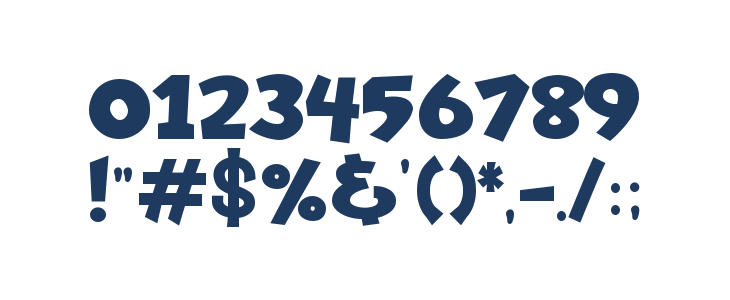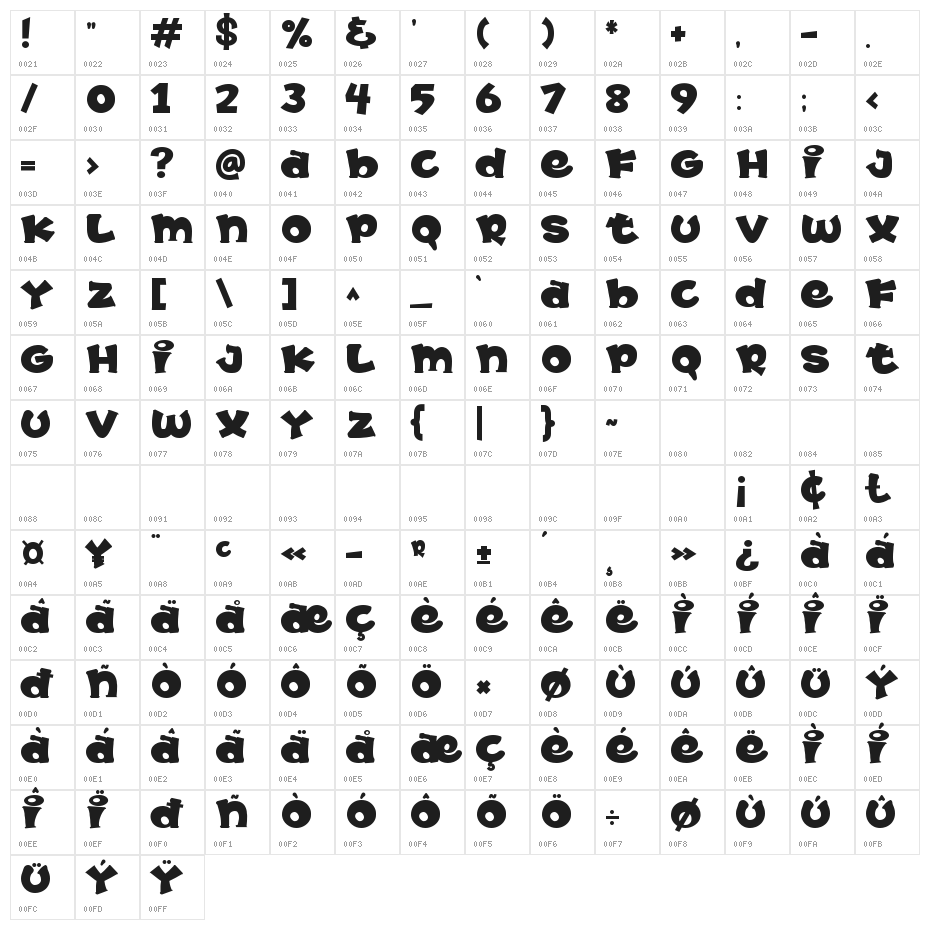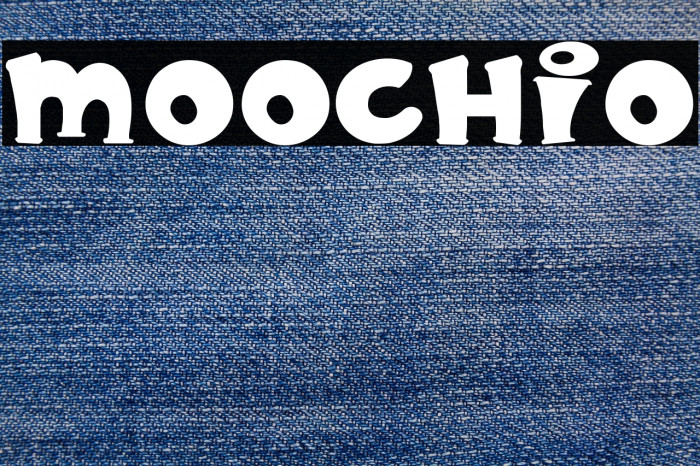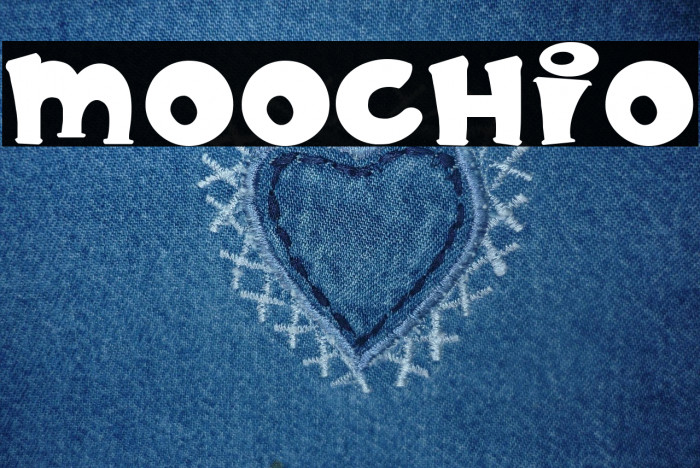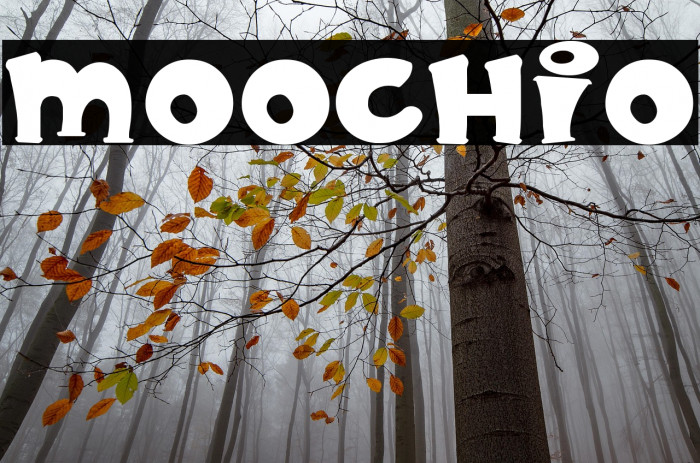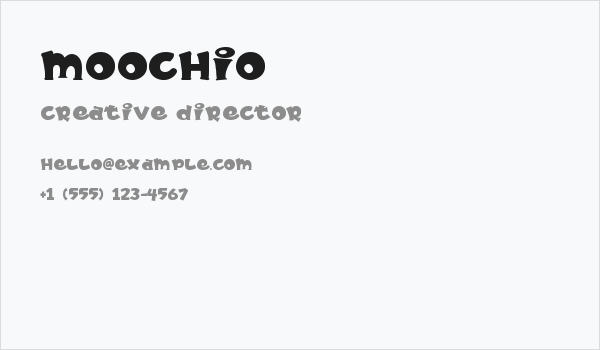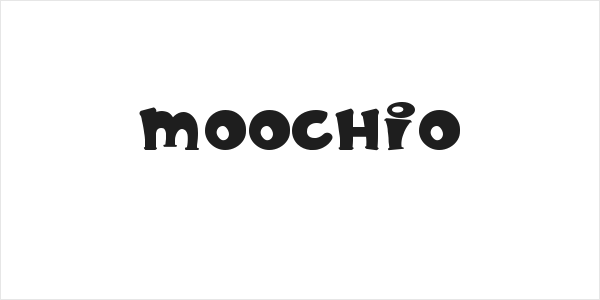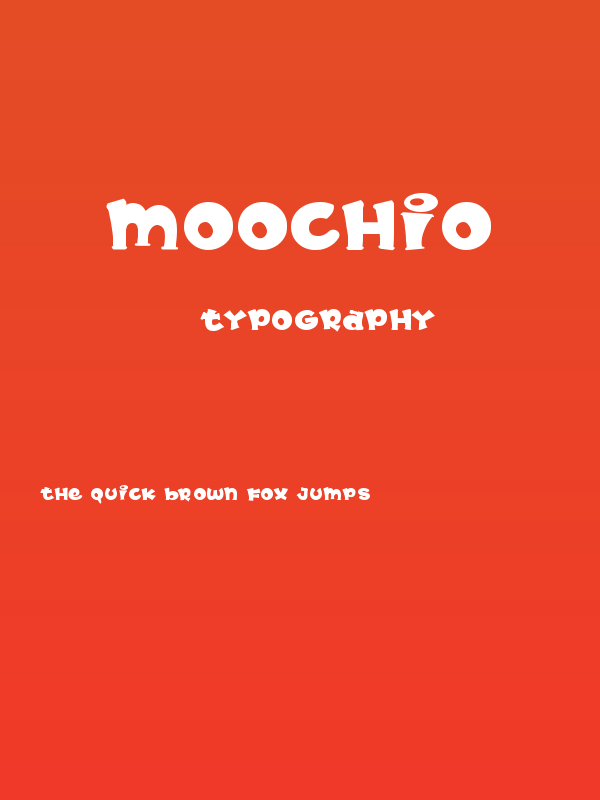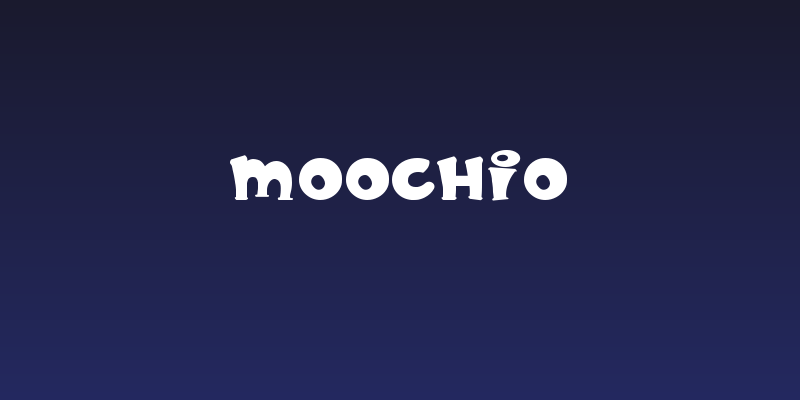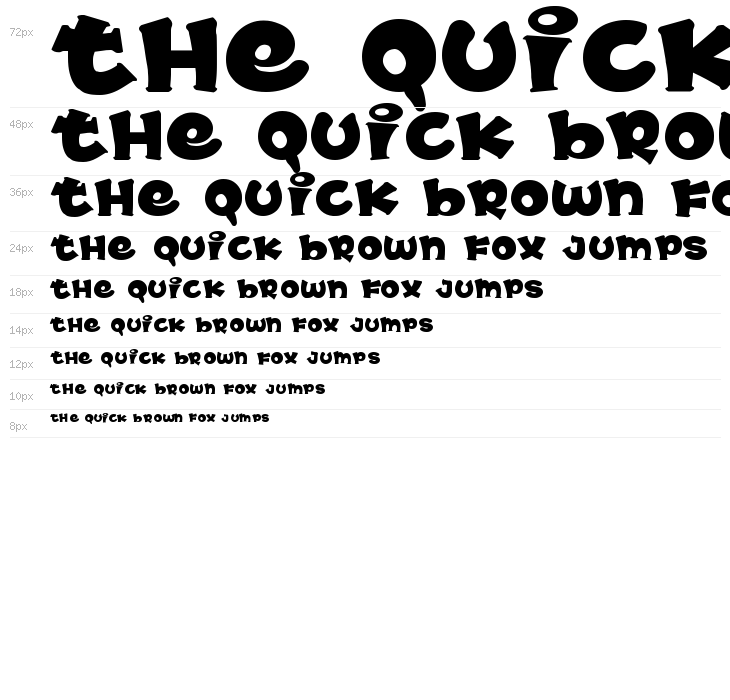
Moochio Font
Moochio Description
This playful and bold font features a whimsical, cartoon-like style with exaggerated curves and thick strokes. The characters are rounded and slightly irregular, giving them a lively and dynamic appearance. The uppercase and lowercase letters maintain a consistent style, with a strong emphasis on boldness and a touch of humor. The numbers and special characters follow the same design principles, ensuring a cohesive look across all elements. This font is perfect for projects that require a fun and engaging aesthetic.
| Overall Style | Playful, Cartoonish |
| Proposed Projects | Ideal for children's books, comic strips, playful branding, and party invitations. |